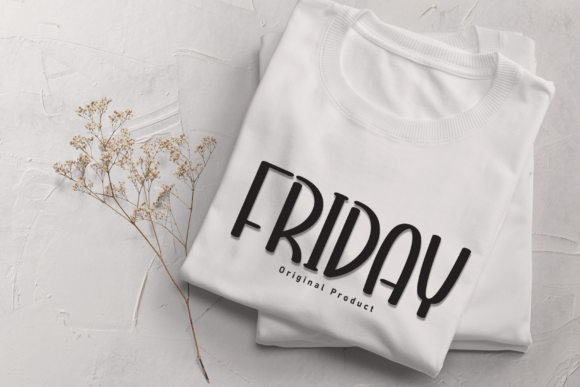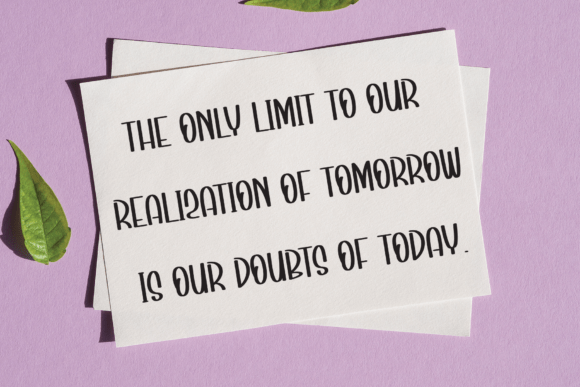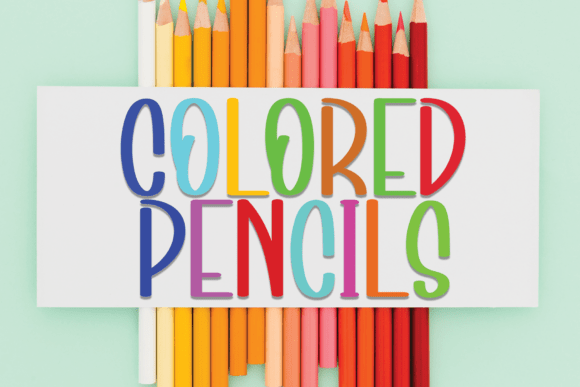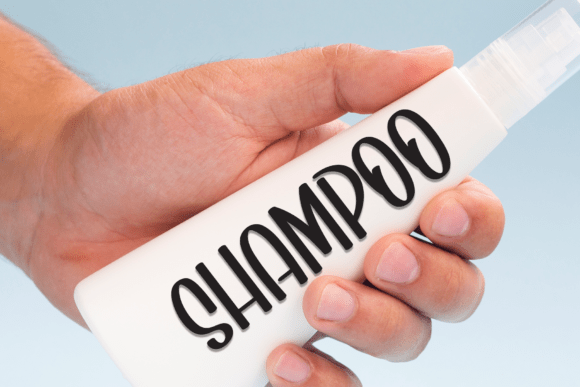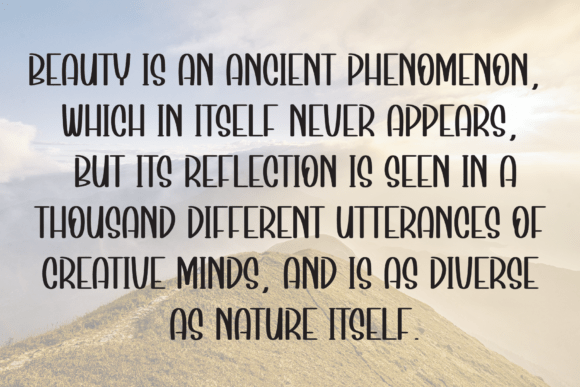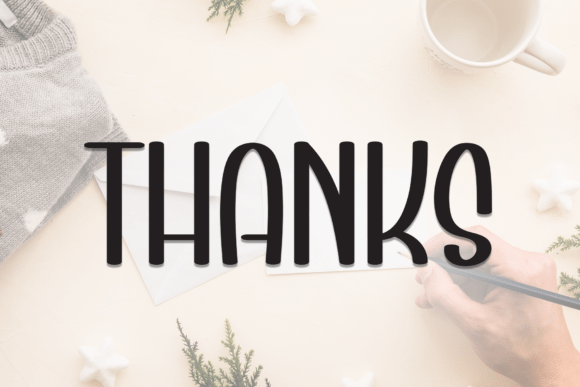
Introduction to Happy January Font Font
Fonts play a crucial role in design, and the Happy January Font font is a typeface that brings both character and versatility to any project. Whether you’re working on a branding project, a website, or a print design, the Happy January Font font offers a unique style that can elevate your work.
Introducing the charm of a sweet and amiable handcrafted display font.
Bursting with playfulness, our unique font is the perfect blend of enchanting and delightful – tailor-made to breathe life into your wedding invitations, greeting cards, or any design project yearning for a splash of fun The blend of casual elegance and joyful whimsy is sure to make your creations unforgettable.
Key Features of Happy January Font Font
Why Choose Happy January Font Font?
The Happy January Font font is more than just a typeface – it’s a design tool that helps you communicate your message with style and clarity. Its unique character set and versatile design make it suitable for a wide range of applications, from elegant invitations to bold headlines.
With its carefully crafted letterforms and balanced proportions, the Happy January Font font ensures readability and visual appeal across all mediums.
What makes Happy January Font font special?
The Happy January Font font stands out with its unique design, exceptional readability, and versatility across various design applications.